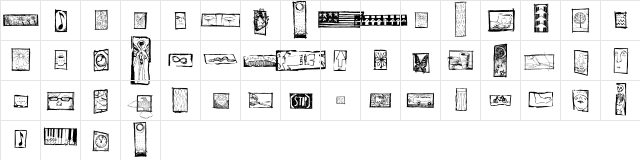
Koelle Ornaments One One
Design Context for Koelle Ornaments One Typeface
Koelle Ornaments One is built around its visual character rather than neutral utility — its distinctive forms are designed to make an impression at display sizes.
Font Pairing: Pair with a clean neutral sans-serif for body copy to let Koelle Ornaments One's character lead without overwhelming the composition.
Pro Tip: Treat Koelle Ornaments One as the centrepiece of your typographic hierarchy. One strong heading set in a decorative face can carry an entire layout.